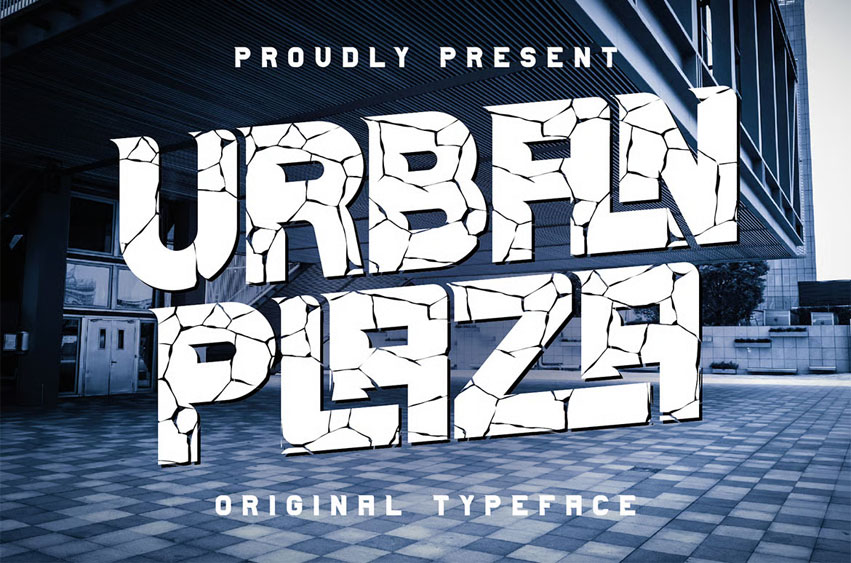
Urban Plaza Font
Urban Plaza Font Unique, cracked, bold, sharp, ligature, monogram & urban style sans serif font.
Comes with multilingual support & ligatures + cracked font version – great for your new logo, monogram or branding project.
• 2 font versions – regular & cracked
• Multilingual support & ligatures
• Great for your new logo, monogram or branding project